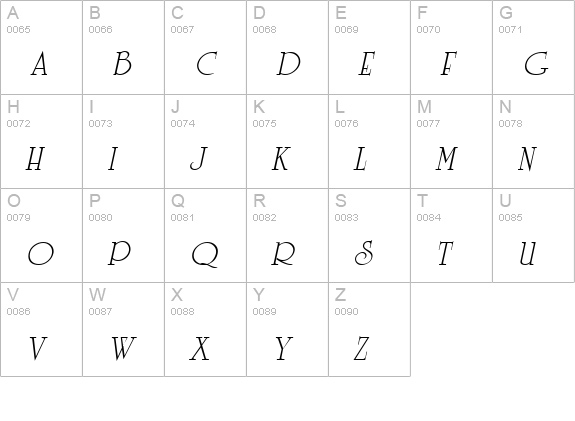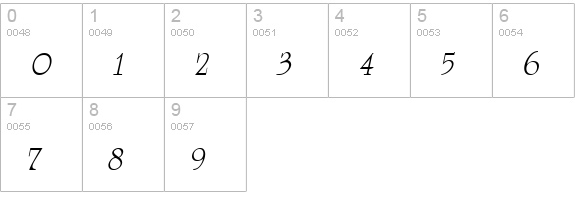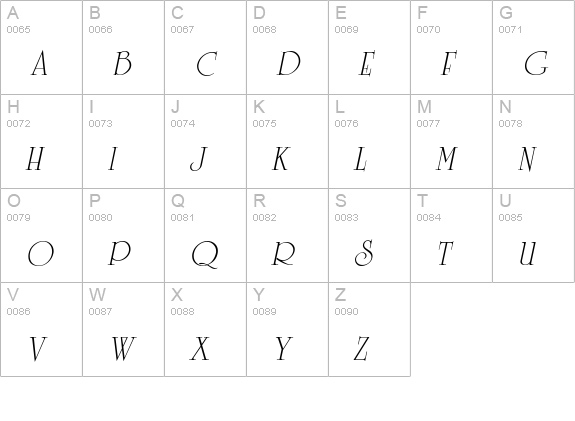
UniversityVariation Italic Font Details
UniversityVariation Italic is a distinctive, italic variant in the UniversityVariation typeface family \xE2\x80\x94 well suited to design and typography projects.
UniversityVariation Italic font is a sleek and elegant typeface that is perfect for adding a touch of sophistication to any design project. With its slanted and slightly condensed letterforms, this font exudes a sense of modernity and professionalism. What sets UniversityVariation Italic apart is its versatility. Whether you're designing a logo, creating a headline, or crafting a wedding invitation, this font will effortlessly elevate your design to the next level. Its unique italicized style adds a sense of flair and dynamism, making your text stand out from the crowd. But the best part? UniversityVariation Italic is completely free to download at FontsMarket.com. Yes, you read that right – you can get your hands on this premium font without spending a dime. This means that you can use it in both personal and commercial projects without any restrictions. So why wait? Go ahead and enhance your designs with the elegance and sophistication of UniversityVariation Italic. Download it for free at FontsMarket.com today and take your typography game to new heights.